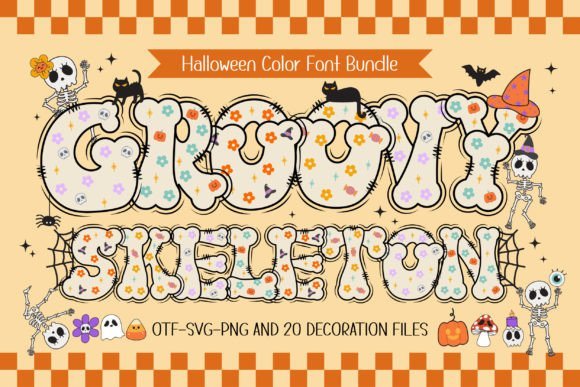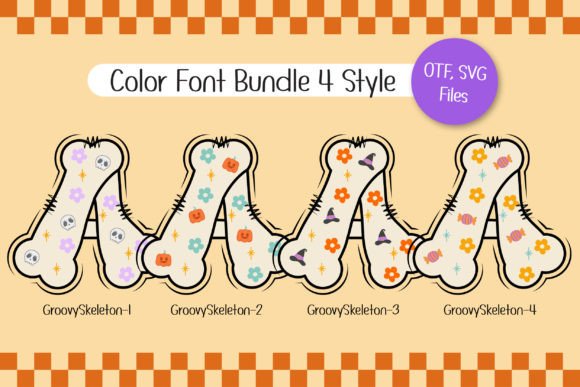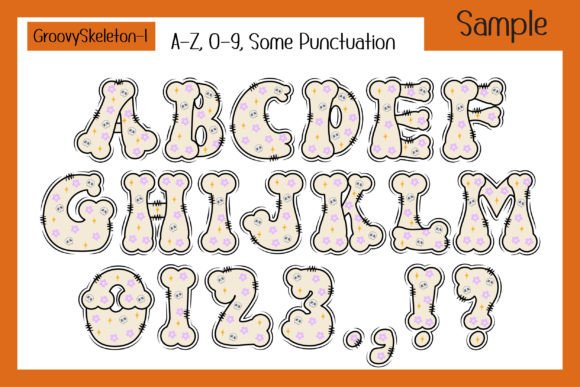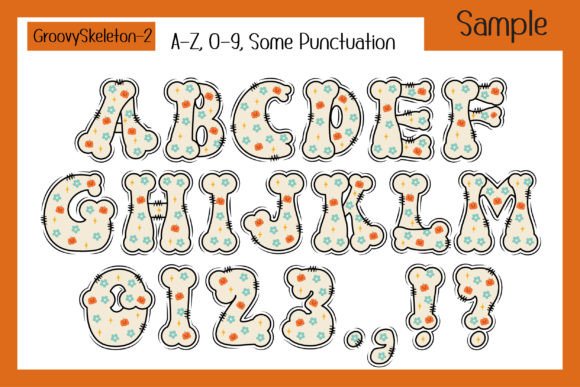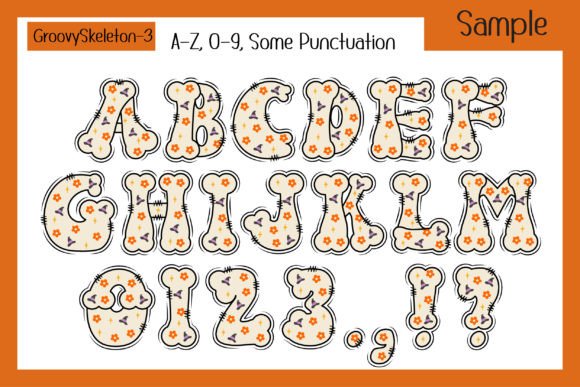
The Perfect Font for a Spooky Halloween
Do you remember that moment when you’re browsing through fonts and suddenly stumble upon the perfect one that makes your design come alive? For designers, this moment is pure magic. It’s the moment when all the pieces fall into place, and your creativity soars. This Halloween, we’re excited to introduce you to the Groovy Skeleton Font, a font that will make your spooky season designs shine.
This groovy Halloween display font is specially designed to add a playful yet eerie touch to your designs. With 4 distinct font styles and 20 bonus matching clip arts, the Groovy Skeleton Font is perfect for Halloween posters, custom DIY projects, and more. Whether you’re a seasoned designer or a crafty enthusiast, this font is a valuable addition to your creative arsenal.
Groovy Skeleton Font Key Features
- Font Family: Groovy Skeleton Font is a unique, hand-drawn font designed for creative and artistic purposes.
- Unique Characteristics: Features a distinctive, hand-drawn style with intricate details and a playful feel, perfect for adding a touch of personality to designs.
Groovy Skeleton Font Review
I recently had the chance to work with the Groovy Skeleton Font, and I must say it’s a unique addition to any design project. ✨ The font’s bohemian vibe immediately caught my attention, and I appreciated the subtle, hand-drawn feel it brings to text. The designer has clearly put thought into the design, with each letterform carefully crafted to evoke a sense of free-spiritedness.
- ✨ The font’s irregularities make it perfect for designs that need a touch of personality and whimsy.
- ✨ The Groovy Skeleton Font is well-suited for use in titles, headings, and other display text, where its unique character can shine.
However, I did encounter a few limitations while working with the font. ⚠️ The Groovy Skeleton Font is not suitable for body text, as its irregularities can make it difficult to read at smaller font sizes. Additionally, the font’s limited character set means it may not be ideal for projects that require a wide range of special characters or languages.
Overall, I think the Groovy Skeleton Font is a great choice for designers looking to add a touch of personality to their projects. While it may have some limitations, its unique charm and open-source license make it a worthwhile addition to any design arsenal.
The Groovy Skeleton Font is ideal for use in creative projects, such as:
– Halloween or horror-themed designs
– Spooky or eerie-themed posters
– Creative typography projects
– Unique and quirky business branding